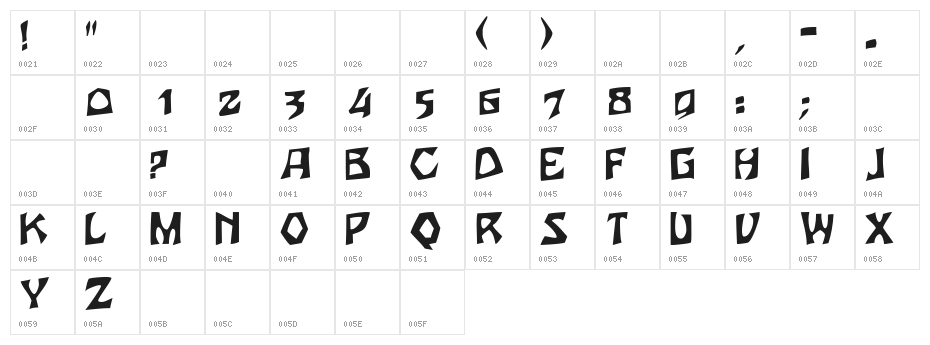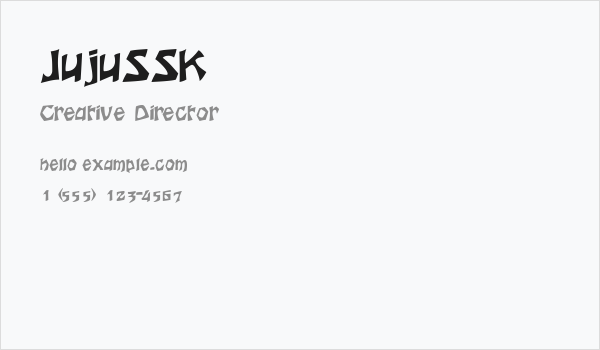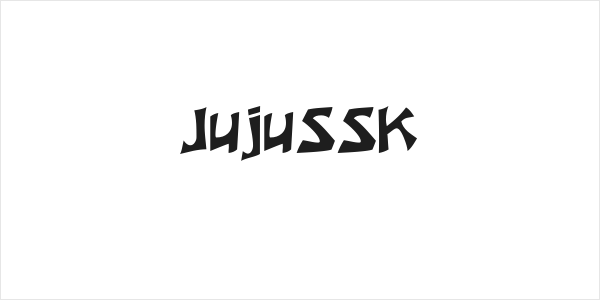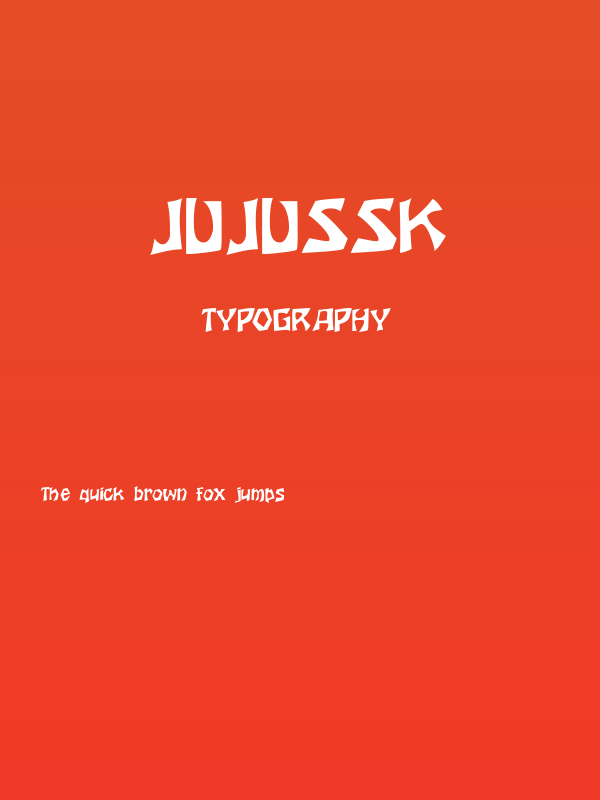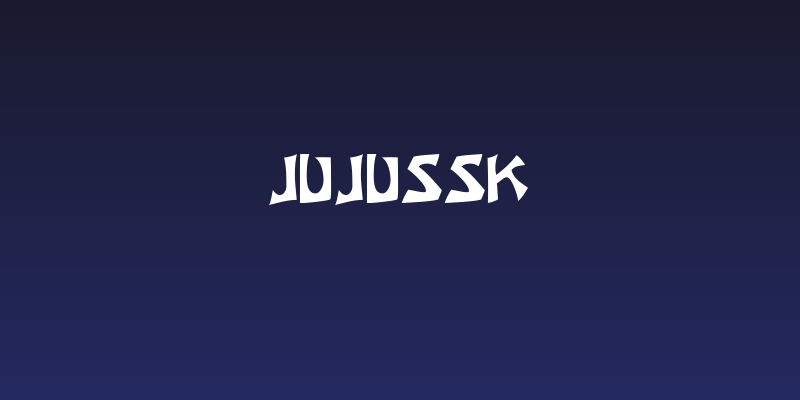
JujuSSK Font
JujuSSK Description
This font features a bold and dynamic style with sharp, angular edges and a slightly irregular form, giving it a unique and energetic appearance. The characters are designed with a sense of movement and flair, making them stand out with a strong visual impact. The uppercase and lowercase letters maintain a consistent style, while the numerals and special characters complement the overall design. This font's distinctive look is ideal for projects that require a bold statement or an edgy, modern aesthetic.
| Proposed Projects | Ideal for posters, album covers, video game titles, and branding that requires a bold and edgy look. |